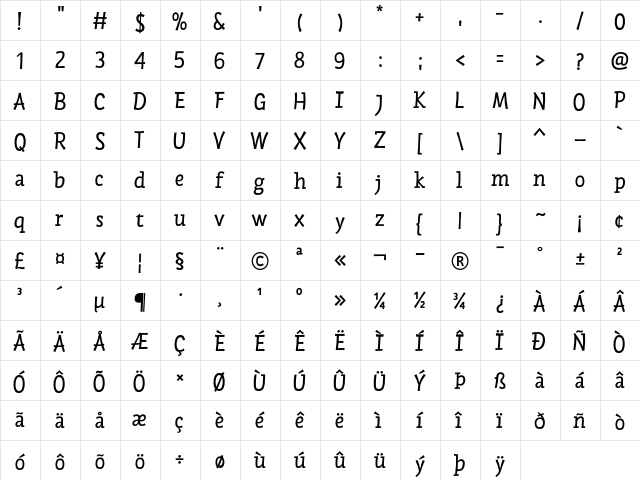
Chispa Regular
| Foundry | Joan Alegret |
Design Context for Chispa Typeface
Chispa takes a measured approach to typography — its balanced proportions and neutral character make it a reliable workhorse for both digital and print work.